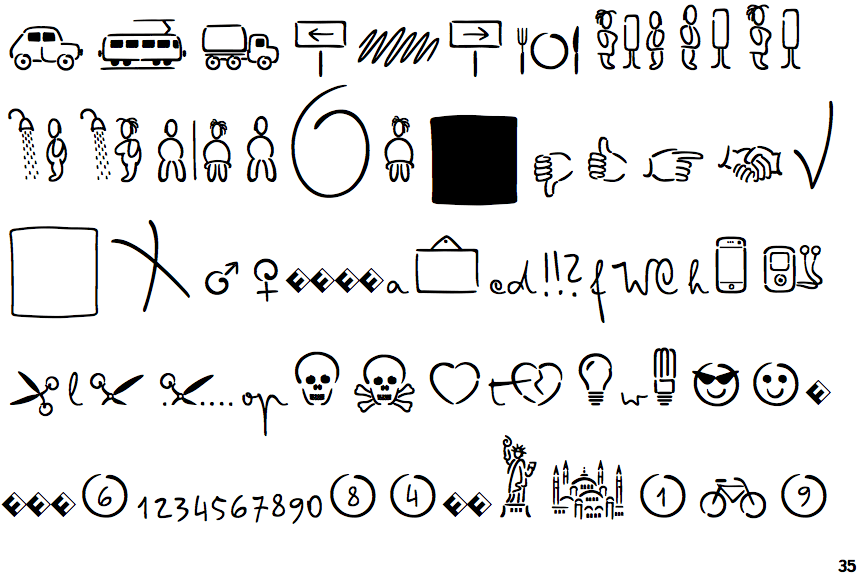
FF Mister K Dingbats
Contains over 600 dingbats that can be accessed from the glyph dialog box, or by typing a three character code in OpenType-compatible applications, classified in the areas of: animals/plants, cities/flags, dingbats, food/dishes, household/garden, leisure/sports/vacation, office/technology/work, people, transport, and weather.
Designers: Julia Sysmäläinen and Oili Kokkonen Year: 2009 Publisher: FontFont |